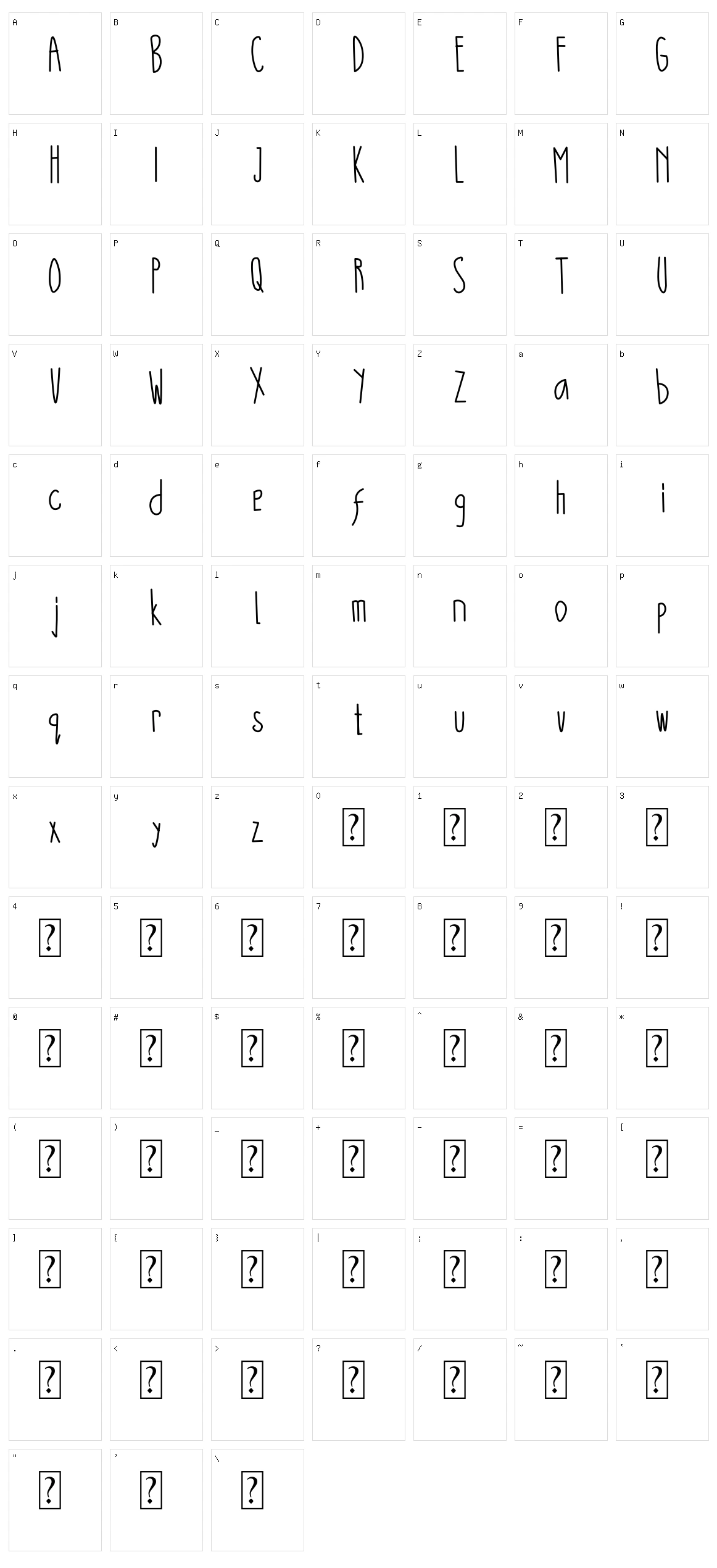
The free font Battani is carefully designed by Niki Studio, showcasing a thoughtful balance of creativity and usability and falls under the Script font style. When you download the ZIP file, it contains only 6.18 KB of font files, making it lightweight and quick to download. Please review the license details below to understand permitted usage and distribution rights. If license information is not available, we recommend using this font for personal projects only or contacting the author directly for commercial usage permissions.